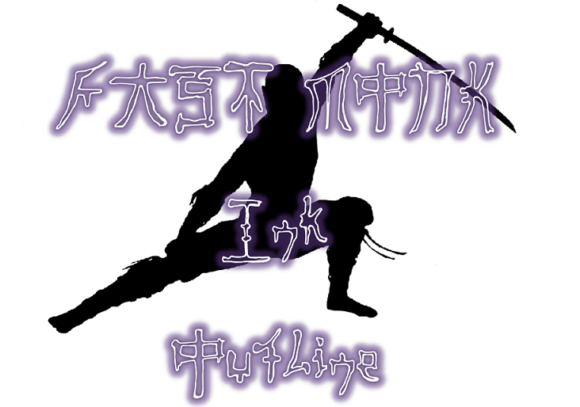
Prepare to be mesmerized by Fast Monk Ink Outline, an alluring script font that will transport your designs to the enigmatic lands of the Orient. Every stroke, every curve, and every flourish embodies the spirit of ancient calligraphy, infusing your creations with an air of timeless elegance.
With its bold and captivating presence, Fast Monk Ink Outline commands attention, making it the perfect choice for headlines, logos, posters, and any project that demands a touch of Eastern allure. Unleash your creativity and let your designs soar to new heights with this captivating font.
Whether you're a seasoned designer or just starting your artistic journey, Fast Monk Ink Outline is the perfect companion. Its versatility knows no bounds, effortlessly adapting to a wide range of design styles. From traditional to contemporary, from minimalist to ornate, this font will elevate your work, adding a touch of sophistication and intrigue.
Shelley, the creative mind behind this masterpiece, has meticulously crafted each letterform, ensuring that every detail is a testament to the beauty and power of Eastern calligraphy. The result is a font that not only meets your design needs but also inspires your imagination.